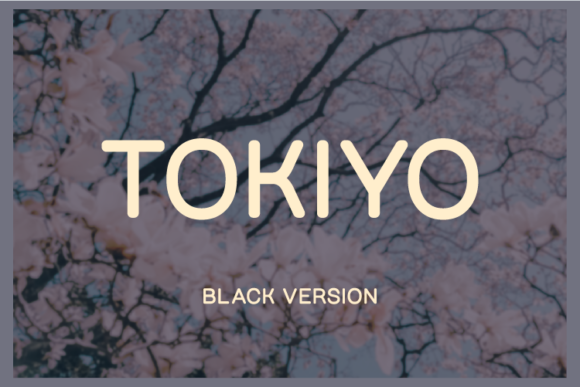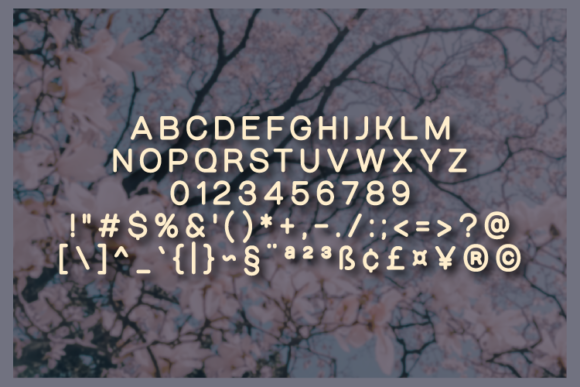
Tokiyo Black Font
About Tokiyo Black Font
Tokiyo is a sans serif font with Japanese design elements. It smoothly blends beauty and elegance into one outstanding typeface.